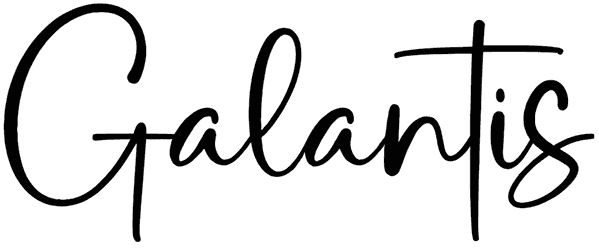
Galantis Font
Designed byRamli Setiadi
The use of the script font Galantis arouses thoughts and feelings of a bygone time. This font is perfect for you if you are committed to any kind of creative work, such as branding, the production of business cards, brochures, or any other such activity.